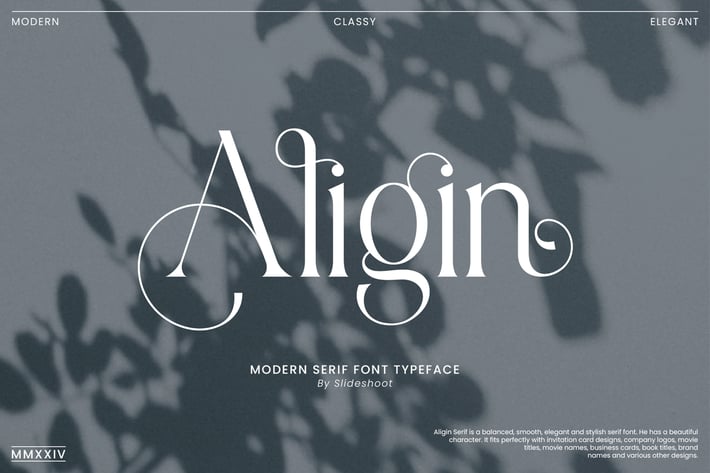
Aligin - Modern Serif Font
Aligin Serif is a balanced, smooth, elegant and stylish serif font. This elegant typeface has a variety of interesting alternatives and ligatures, adding a touch of sophistication to any design. Very suitable to be combined with invitation card designs, company logos, film titles, film names, business cards, book titles, brand names and various other designs. Aligin Serif is a smooth serif font that exudes sophistication and elegance. Its stylish alternation and binding make this font the perfect partner for any project.